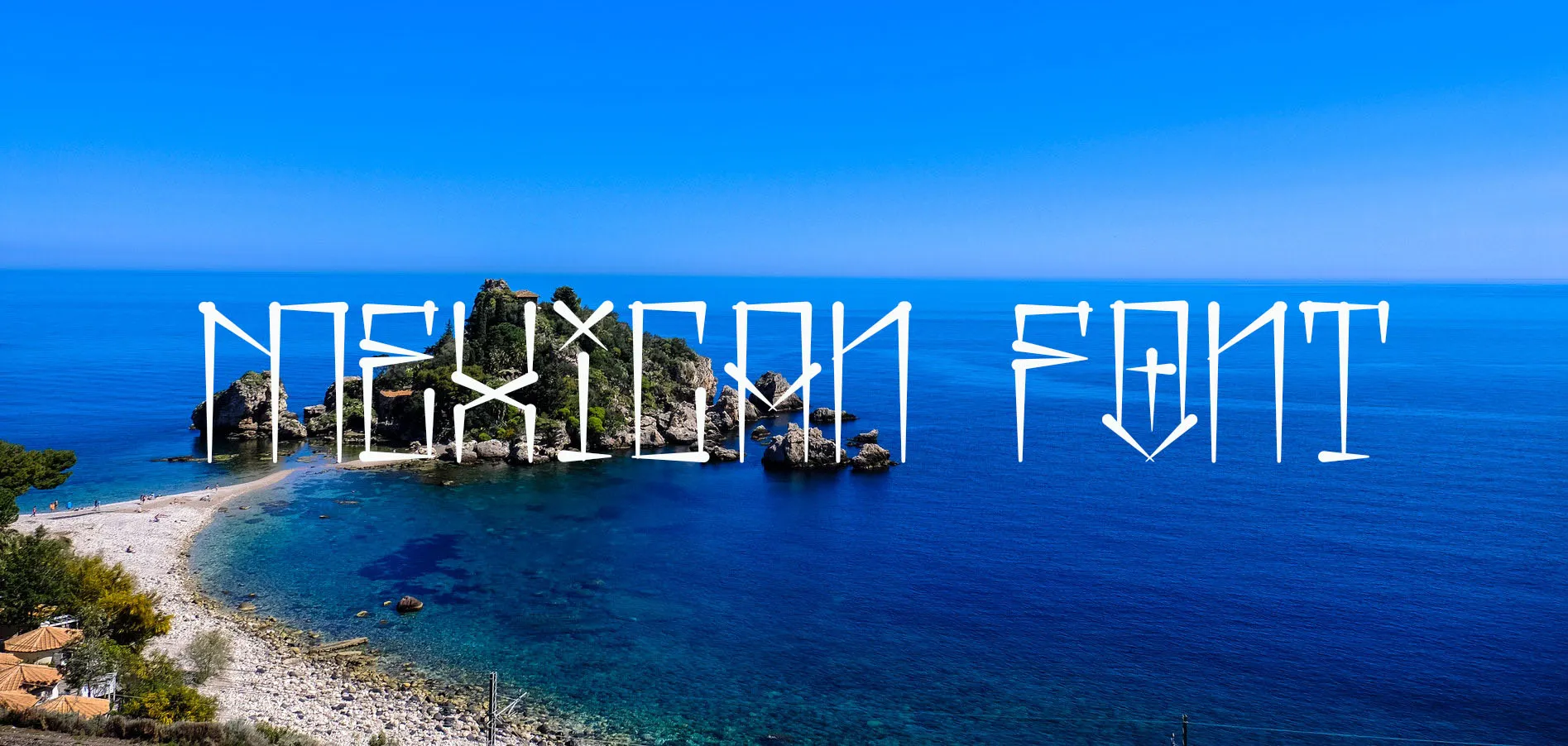
Mexican Font Family falls under the Display category. It was designed by the talented team at Freebies. This font package is comprehensive, including 8 different weights, each accompanied by its respective Italics version.
The font’s regular styles providing 62 extraordinary glyphs with 1000 units per Em and 94 thin stylish characters including uppercase, lowercase, numbers, general punctuations, symbols, and some special characters.
Mexican Font Family